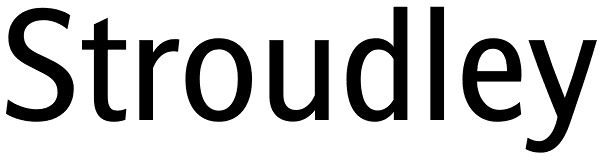
Stroudley
The Stroudley font family was originally designed with signage in mind, with its basic structures carefully crafted to save space while providing the highest possible legibility. A clear humanist sans font, Stroudley confidently assists in even the...